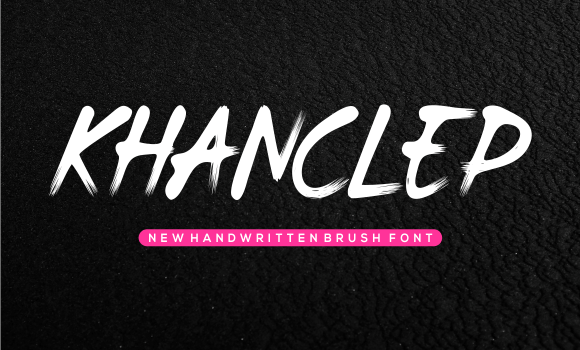
khanclep
Khanclep Font – Free Download Introduction to Khanclep Font Khanclep is a fun and casual handwritten font. 📸 Preview Gallery 4 images 📌 Product Name Khanclep Font 👤 Author brahamb78 📂 Category Explore ⬇️ Download Khanclep Font FREE Free Download